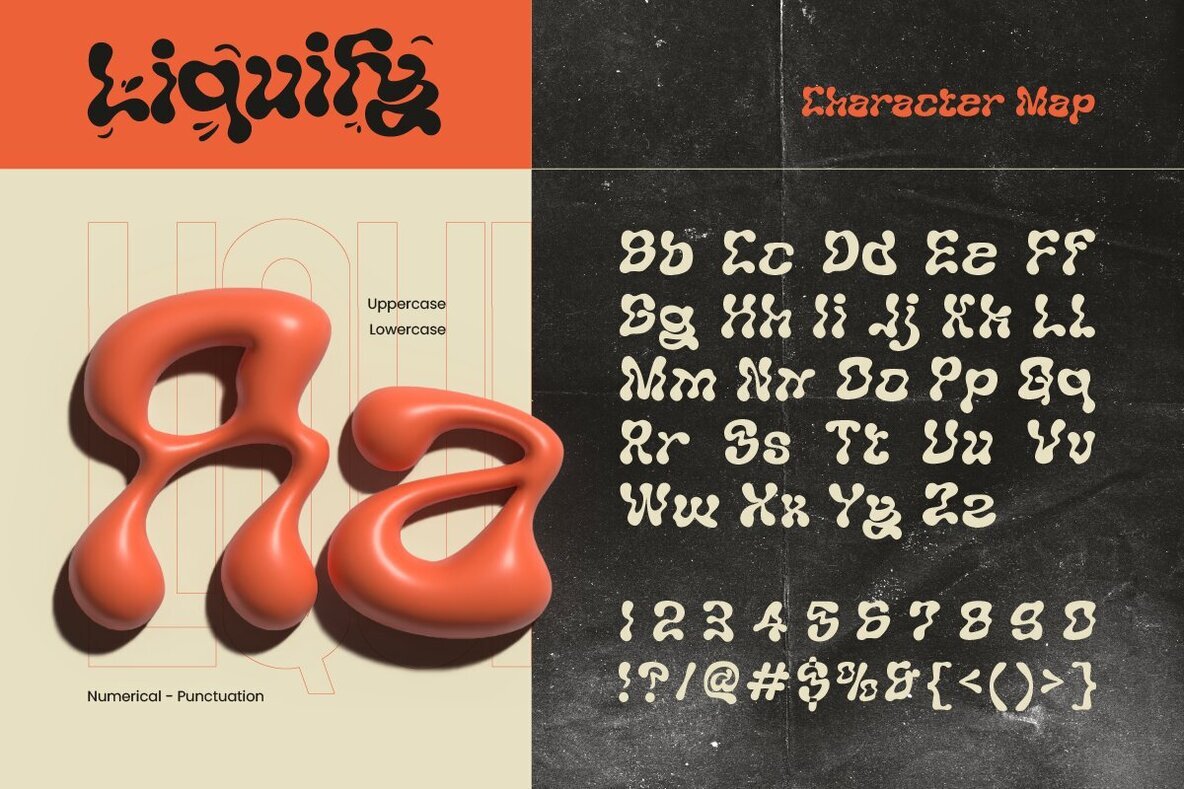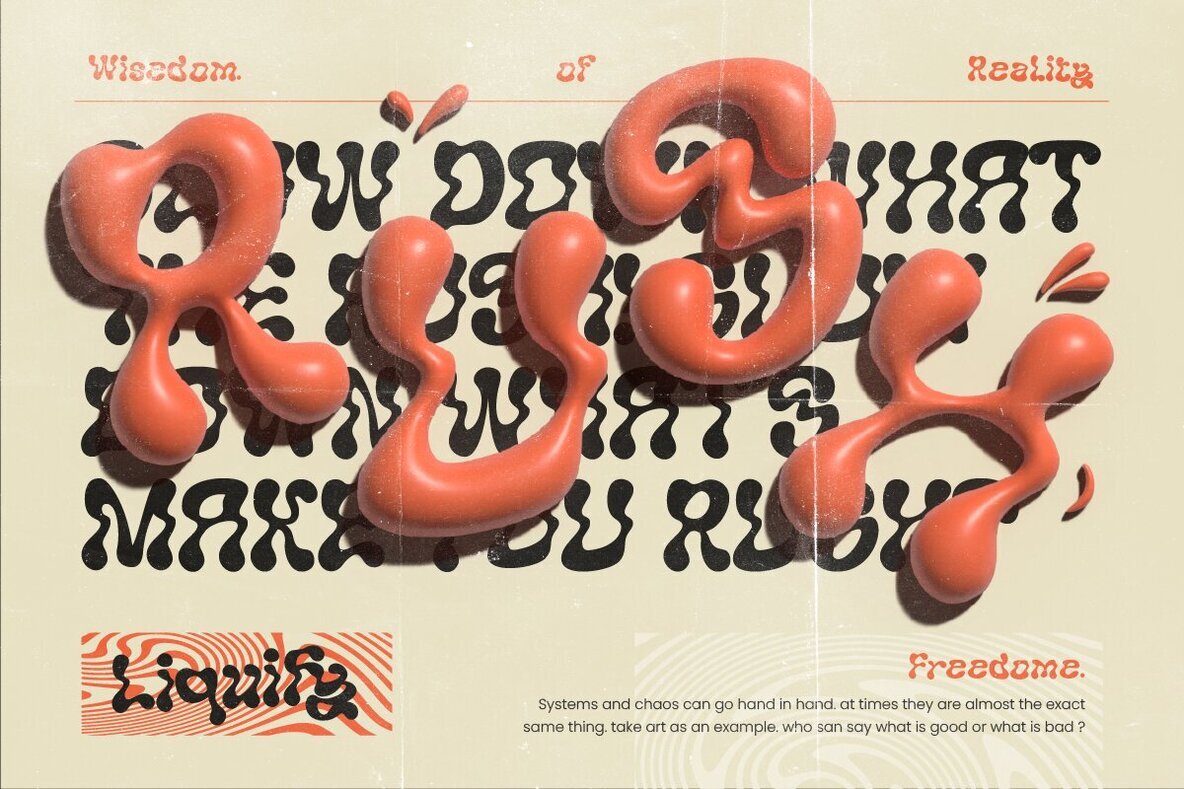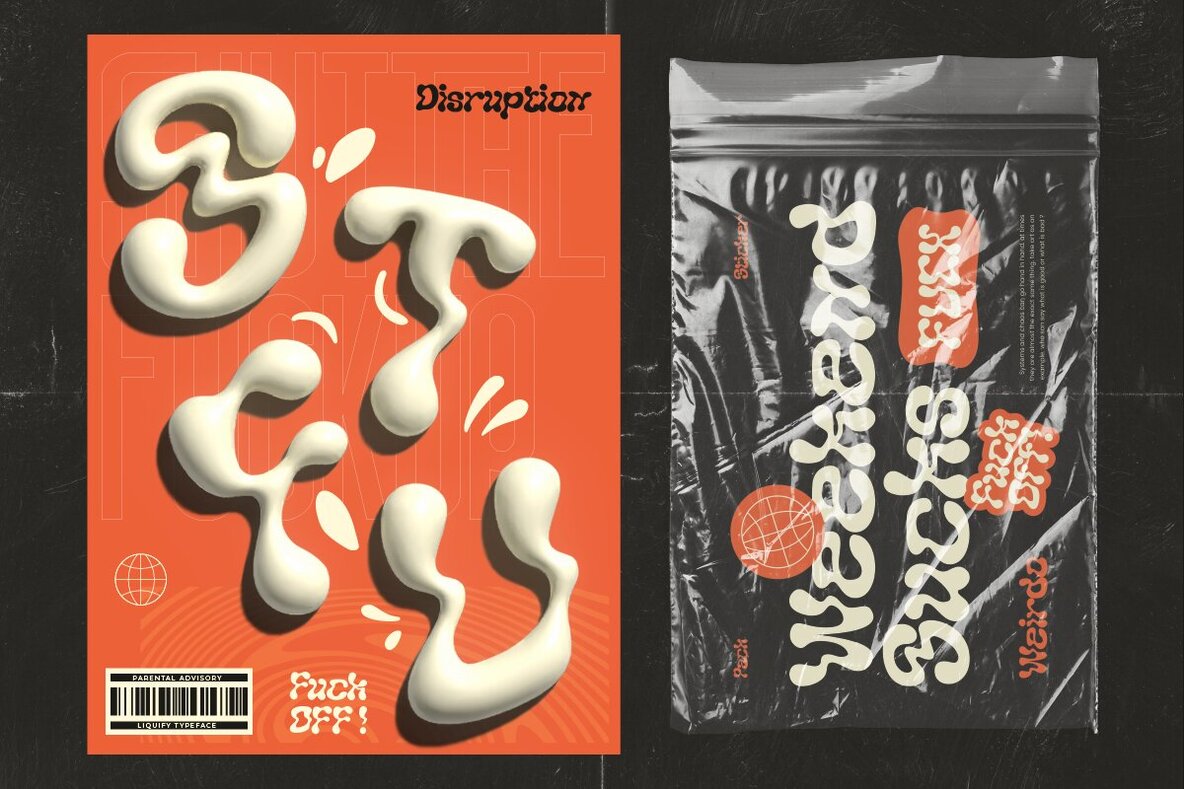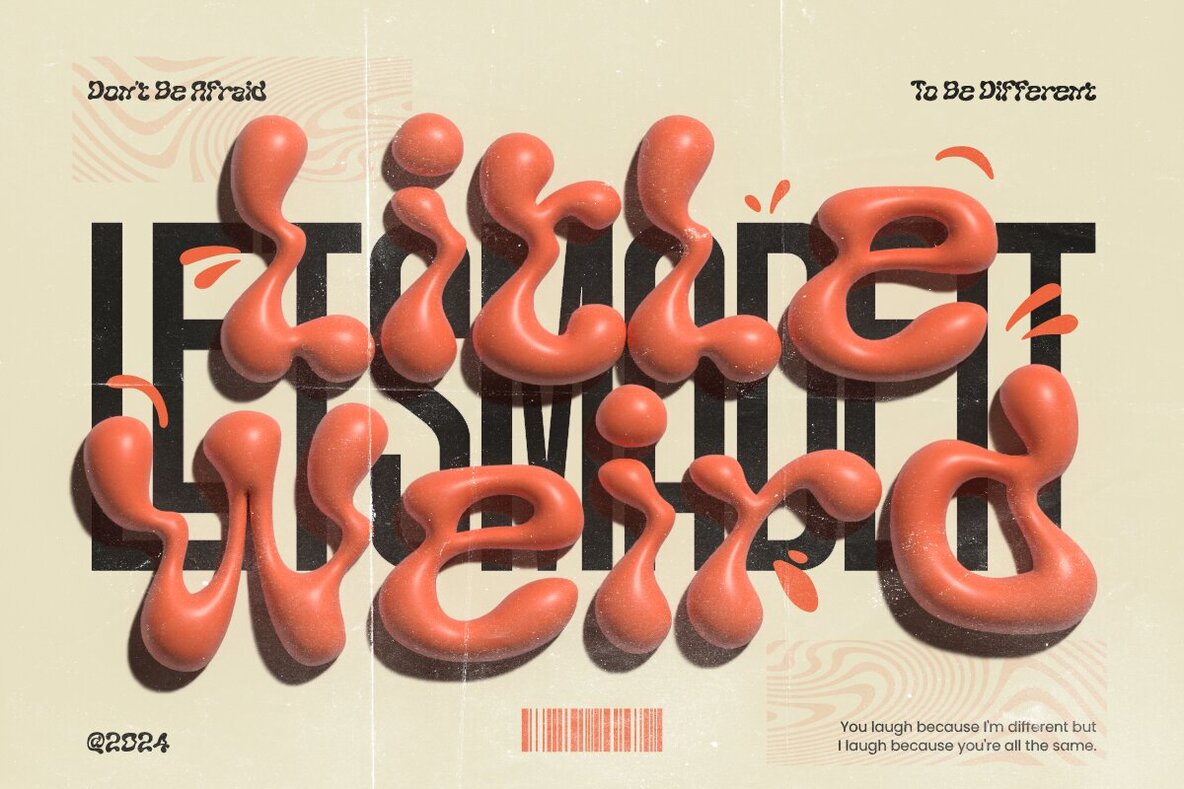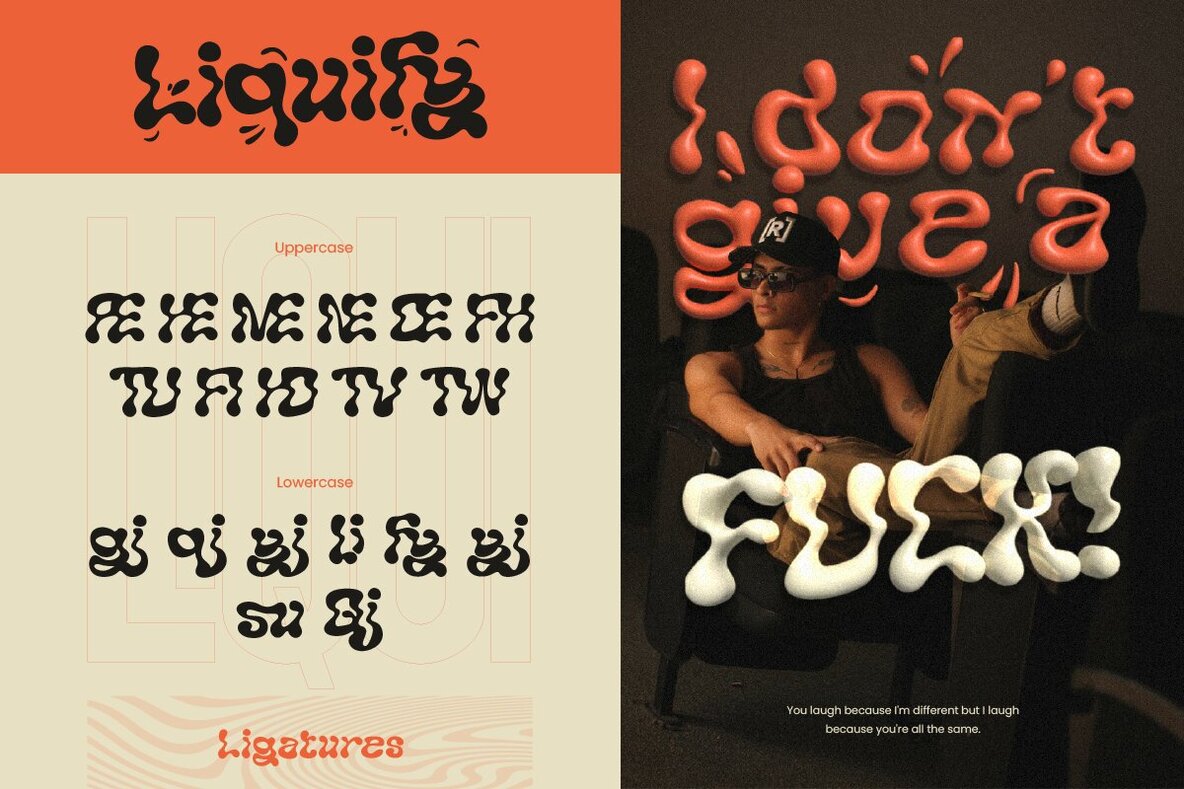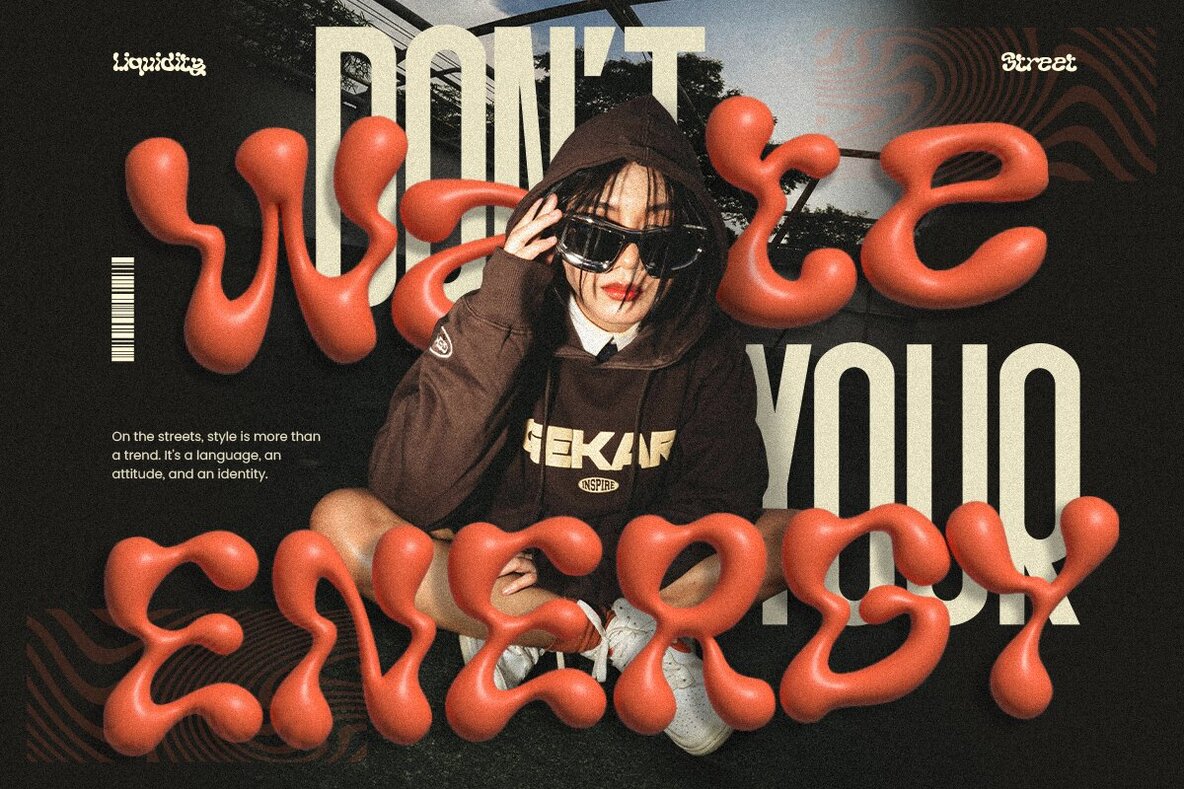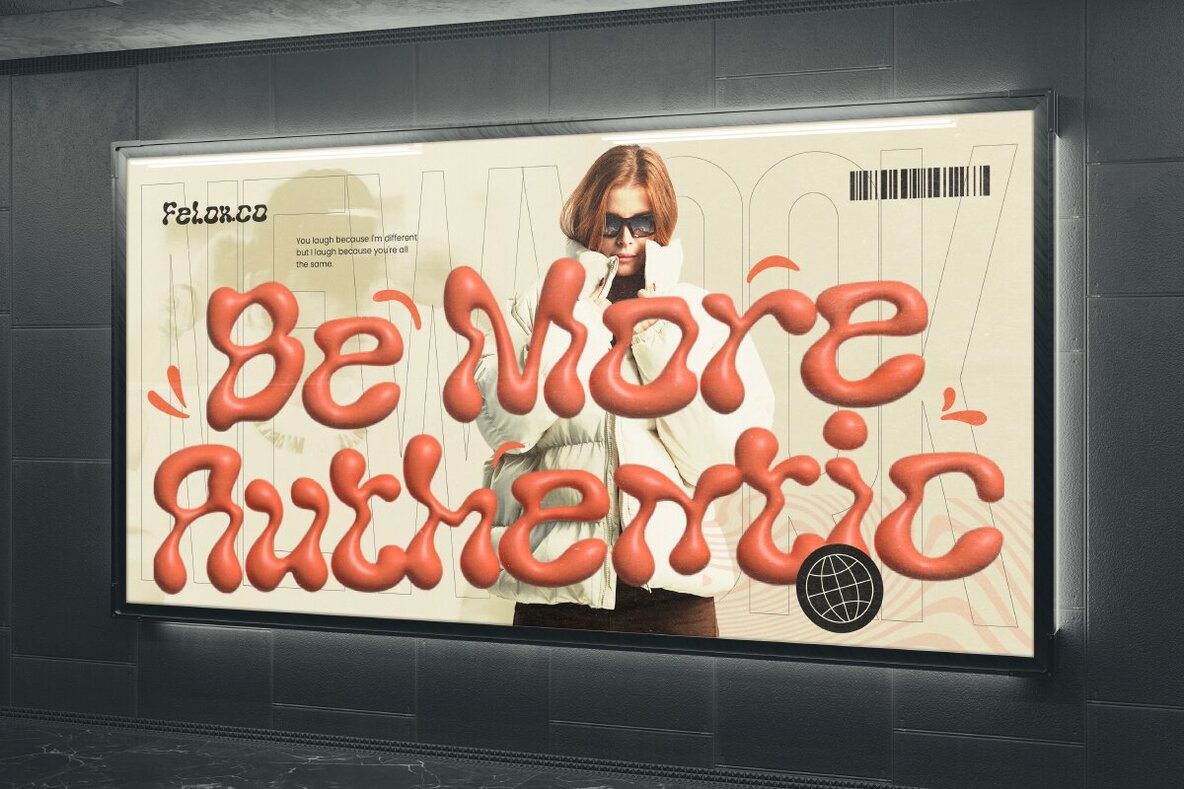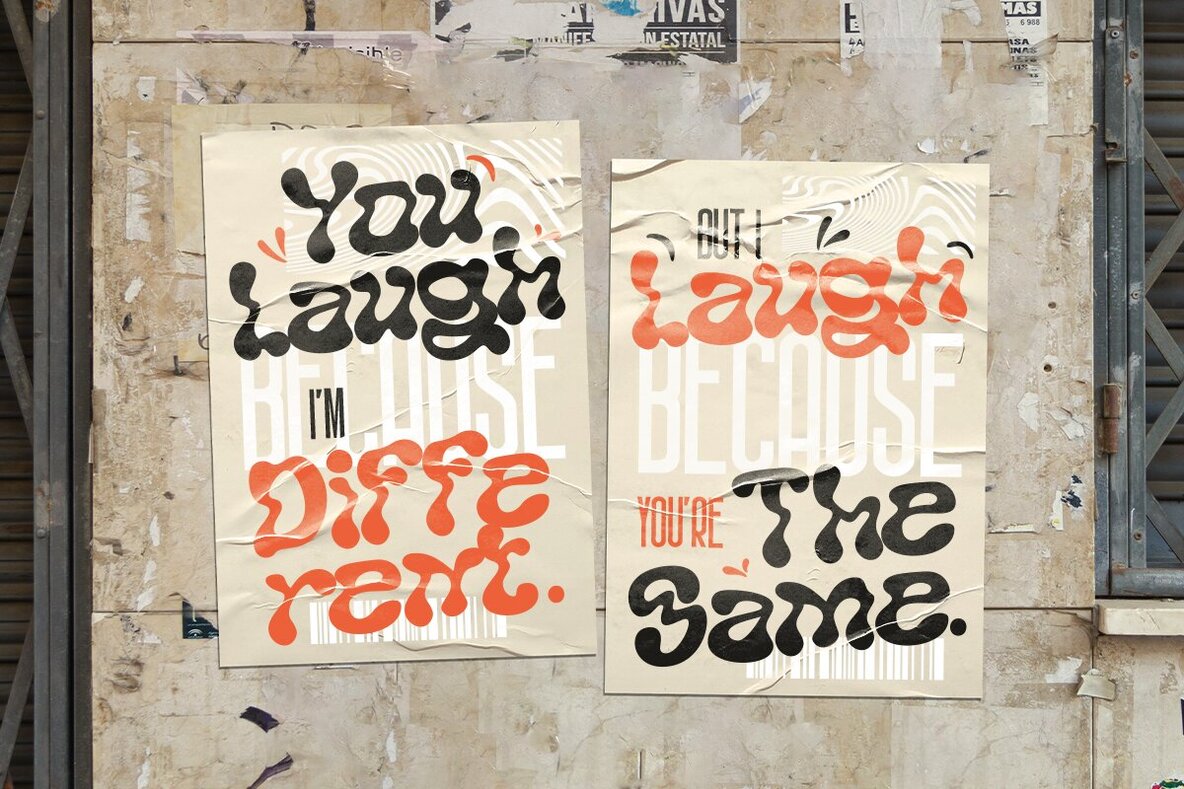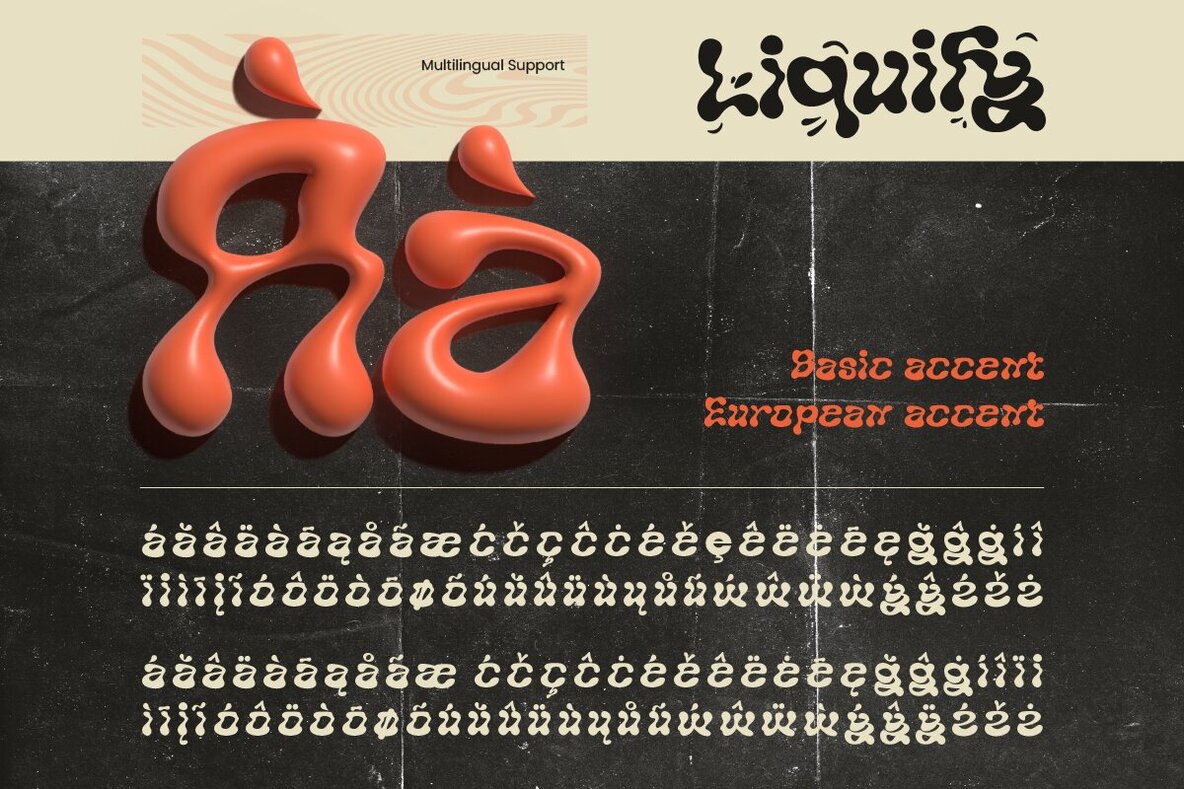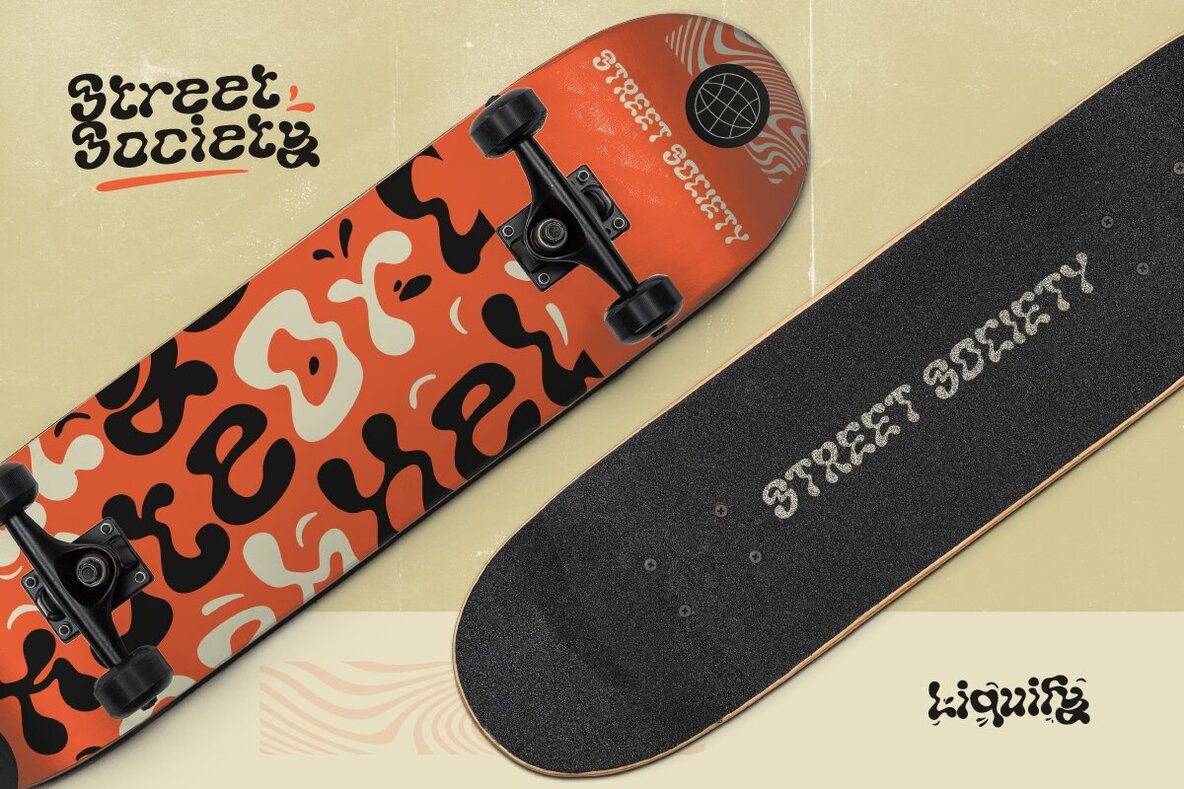
Liquify Font
Liquify Regular
Introducing, Liquify, where letters appear to flow and dance like water. Liquify captivating style of typography that mimic the appearance and behavior of liquids. This typeface feature characters that seem to flow, drip, or undulate, creating a dynamic and fluid visual effect. Making it perfect for the design that aim to convey energy and creativity. The smooth shape and create sense of harmony, allowing your text to blend seamlessly. Ideal for branding, event invitation, artistic project, and other design project with theme of innovation, playful, and creativity. Features: